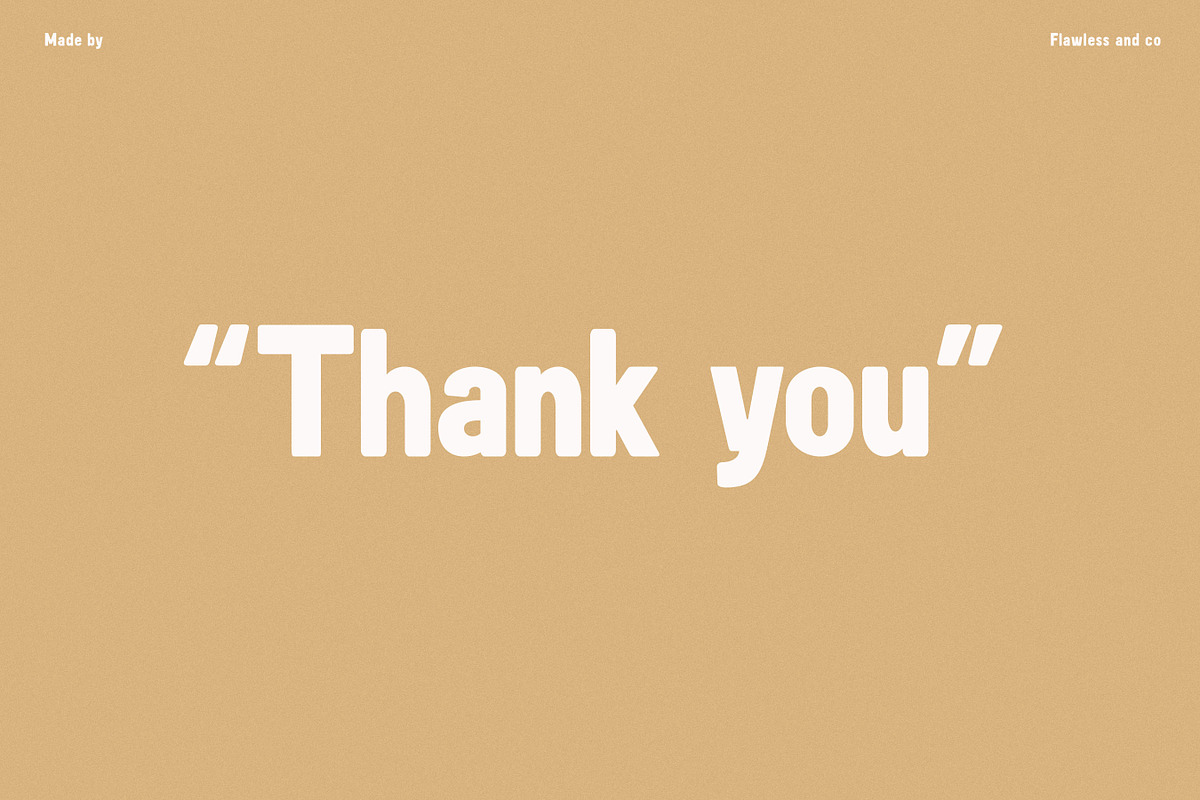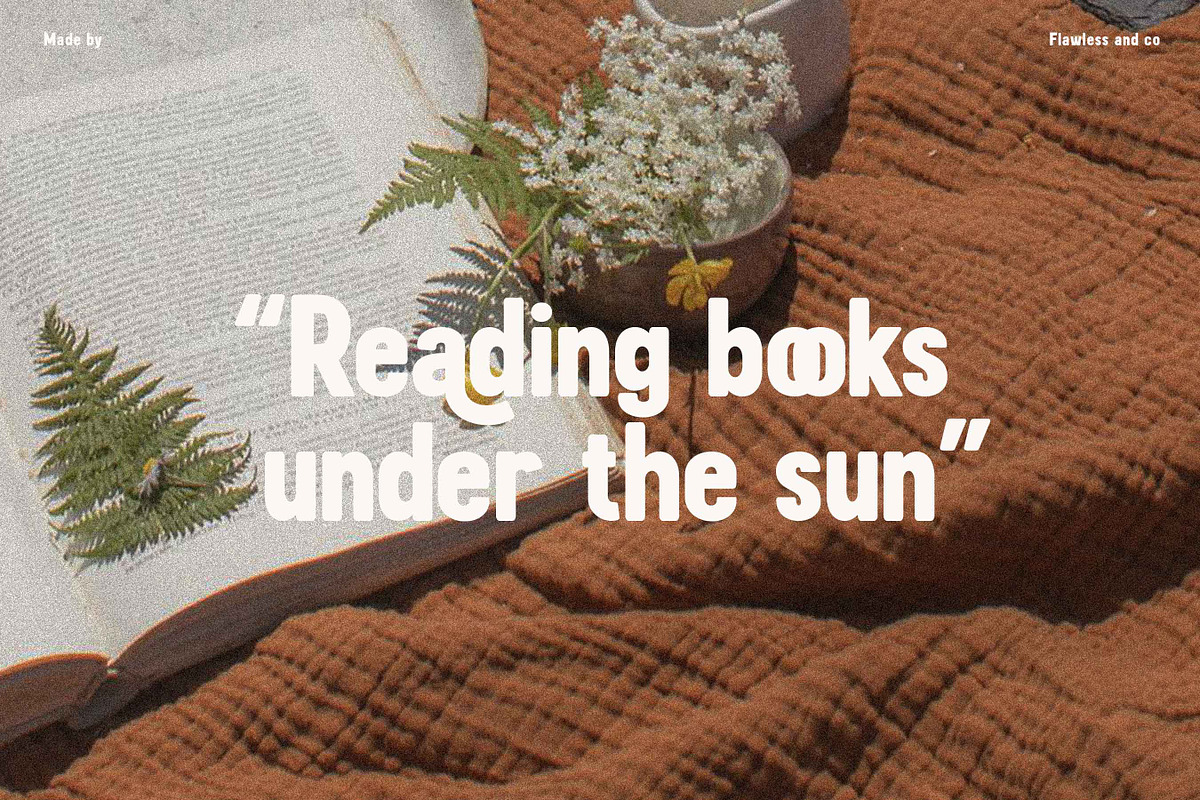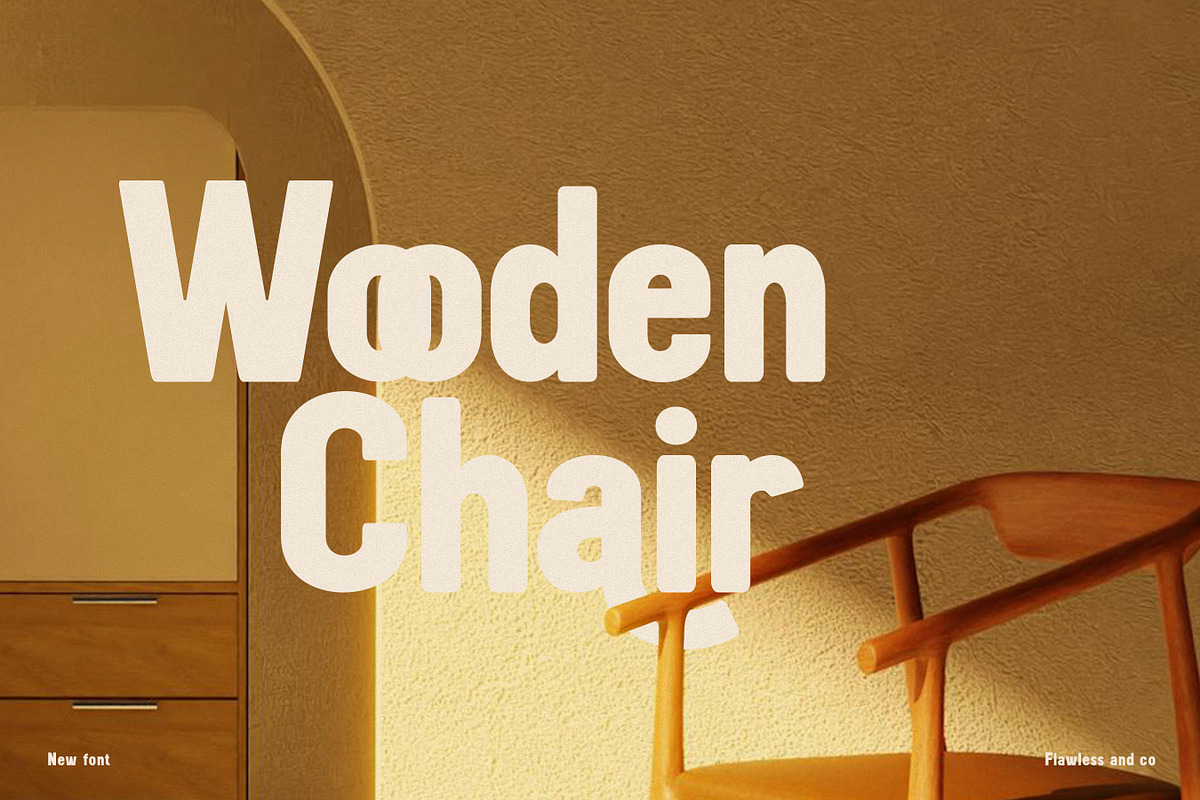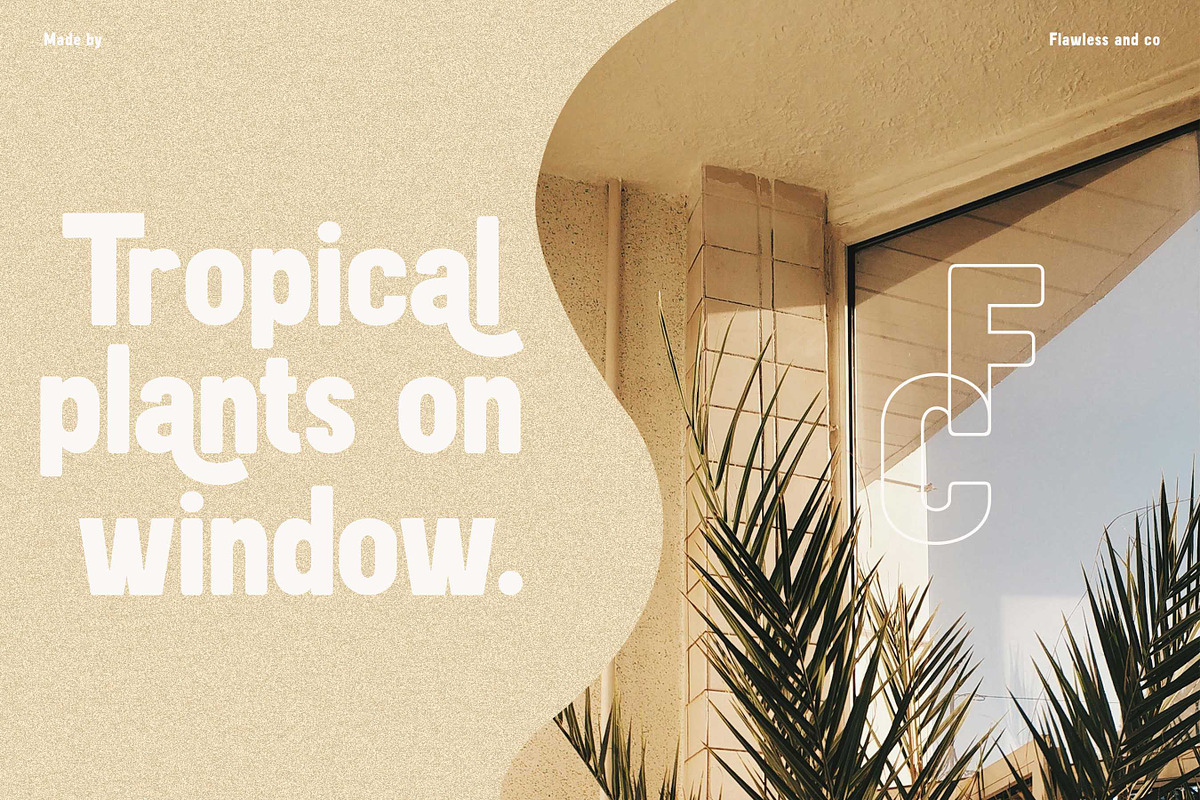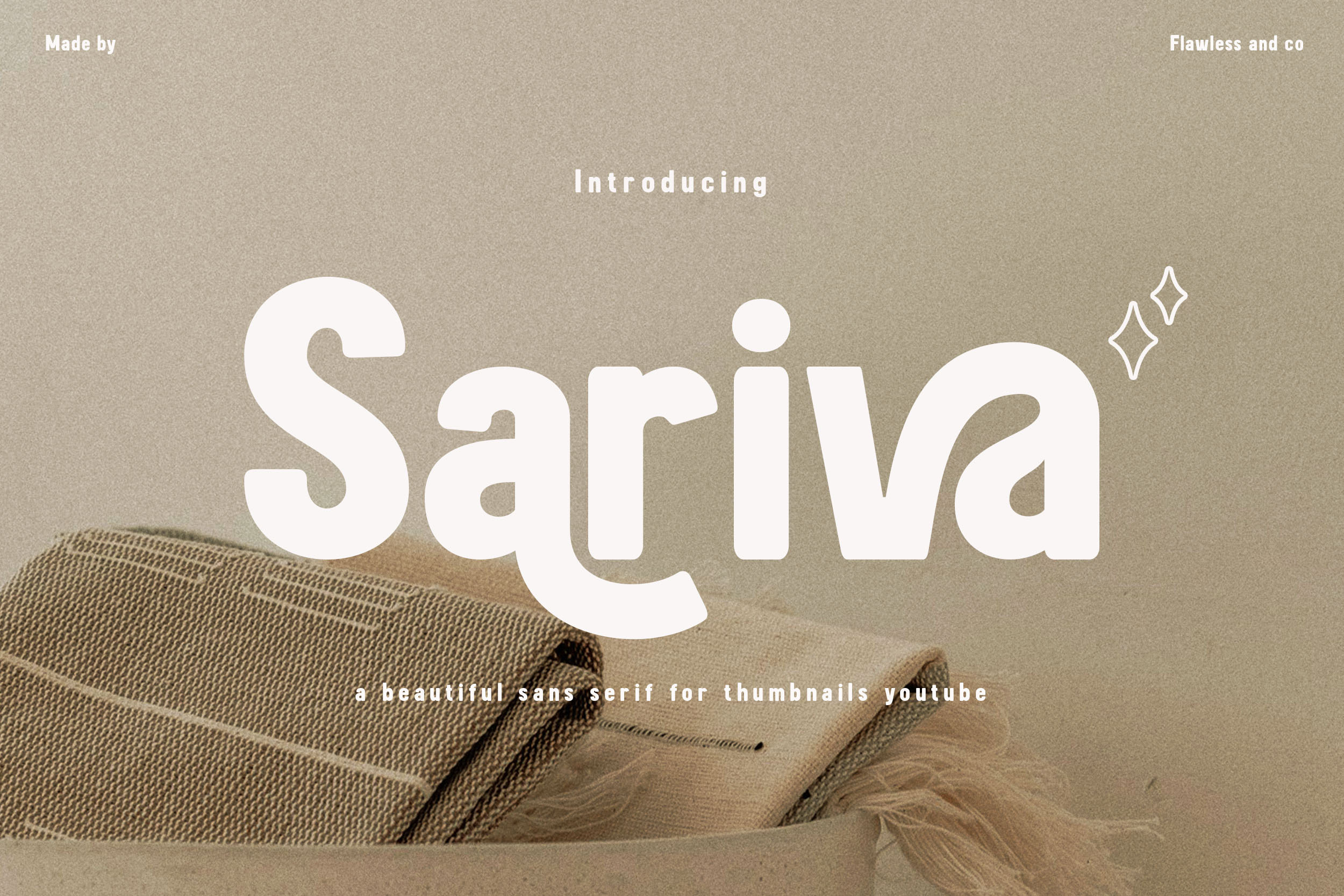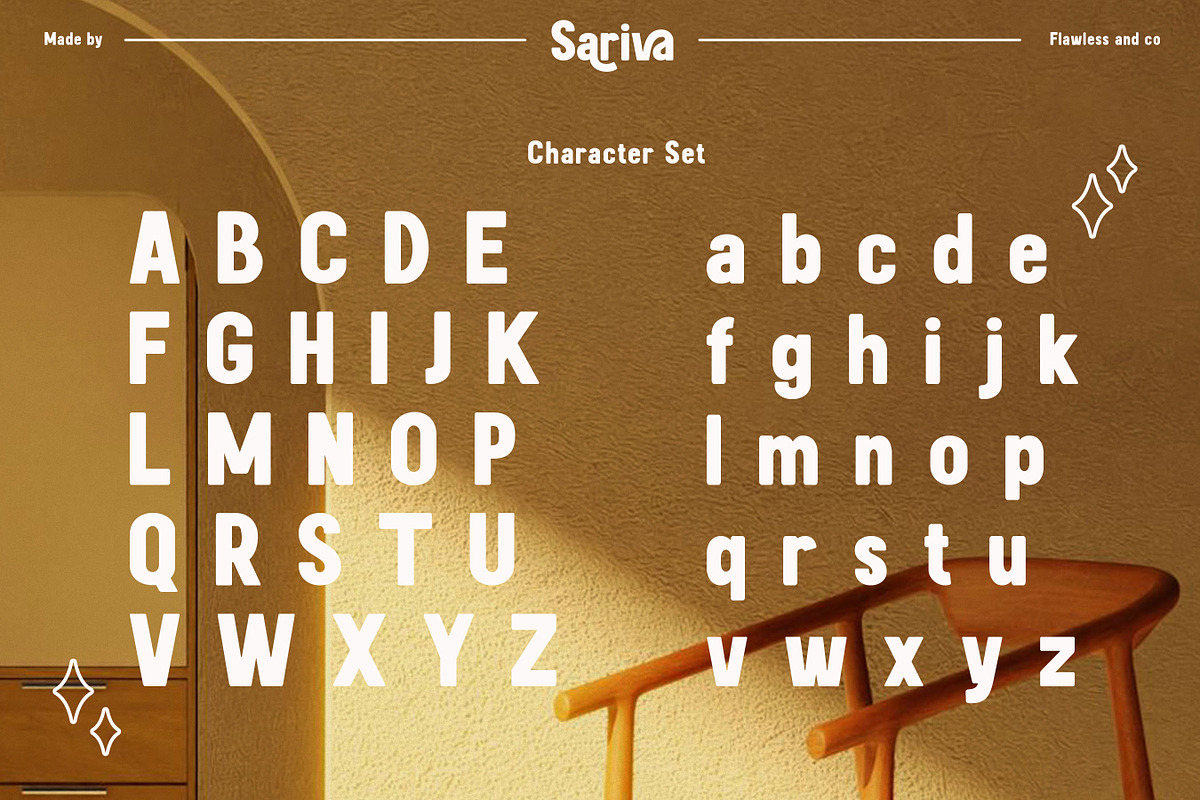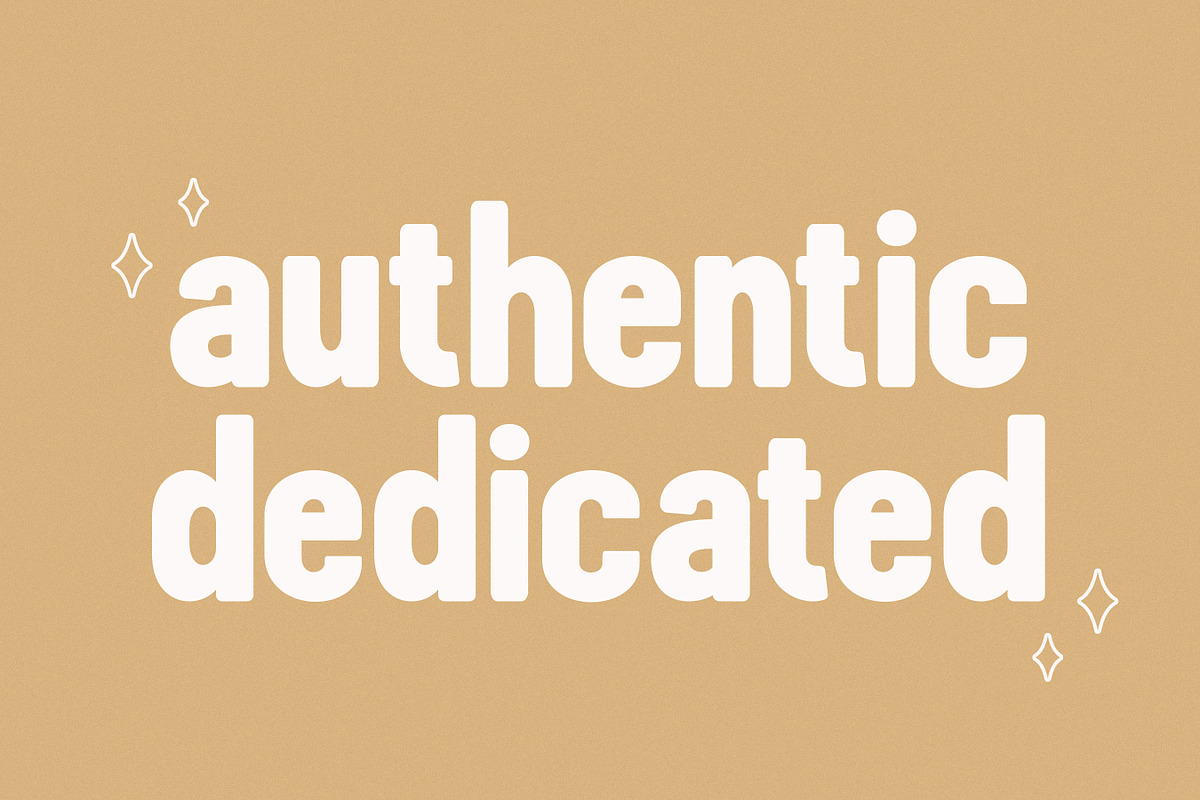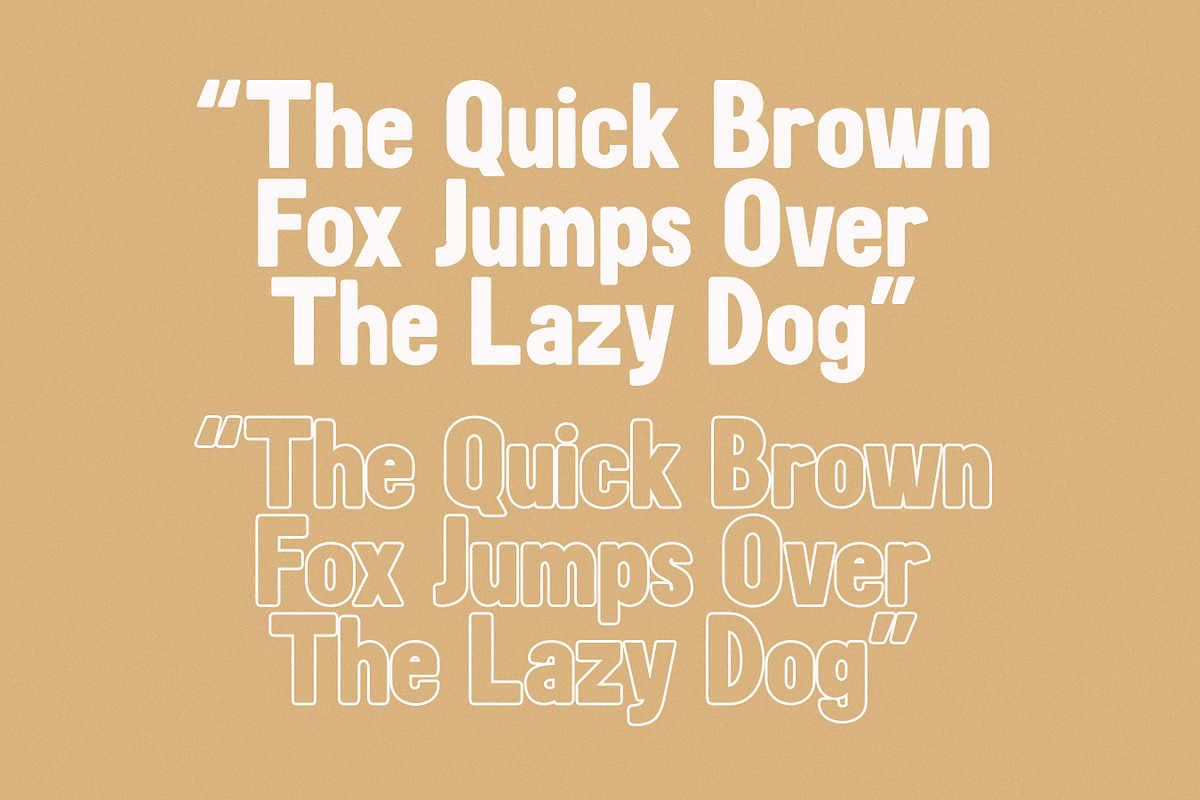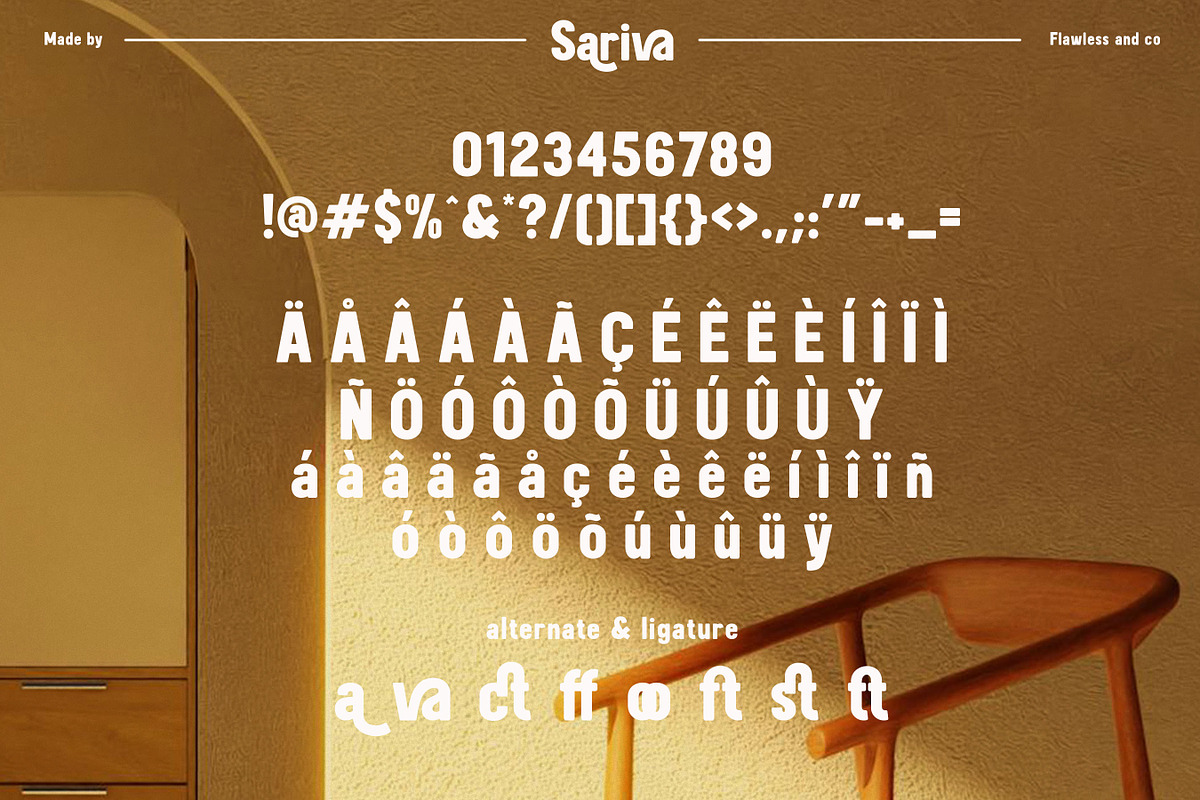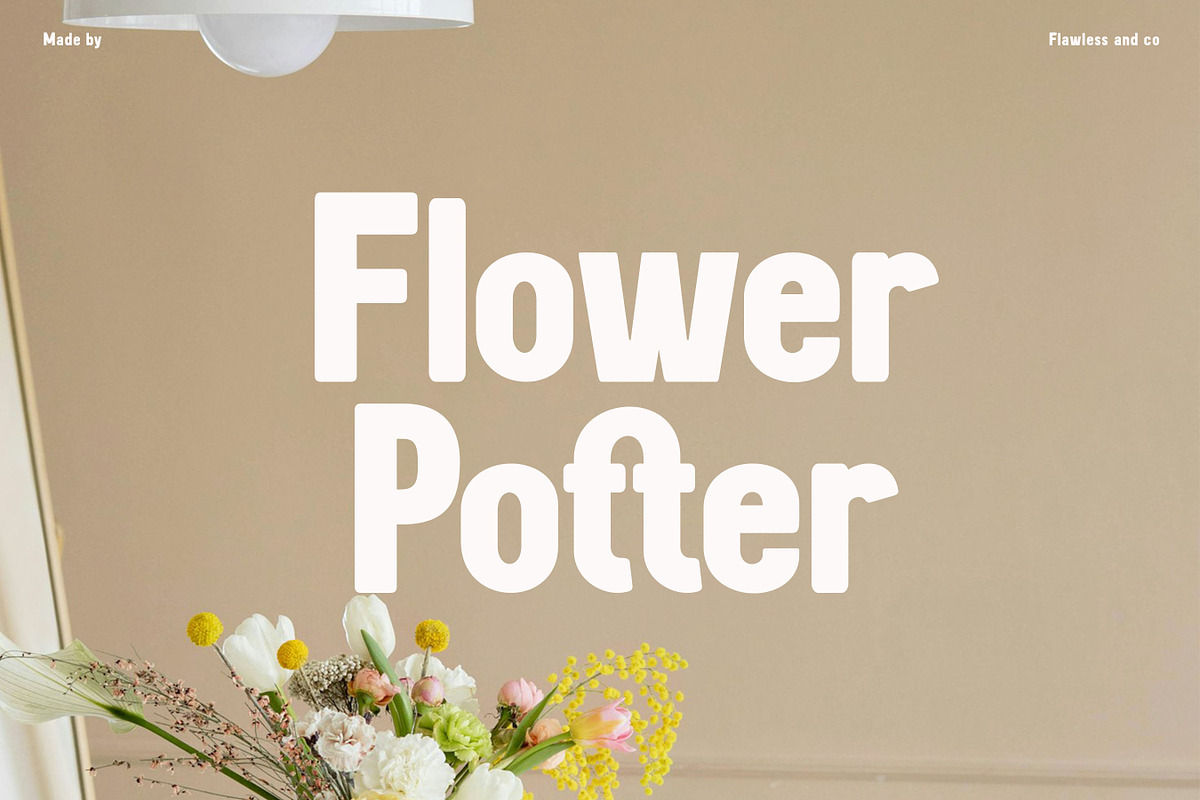
Sariva - Thumbnail YouTube Font
Introducing Sariva, a bold and captivating sans-serif font designed to make your YouTube thumbnails stand out from the crowd. With its clean lines and geometric structure, Sariva exudes a sense of modernism and professionalism, perfectly complementing a wide range of YouTube content. This font is suitable for any graphic designs such as branding materials, Thumbnails YouTube, video content, print, business cards, logos, posters, t-shirts, photography, quotes .etc
Multilingual Uppercase alphabet A-Z Lowercase alphabet a-z Numbers 0-9 Some punctuation